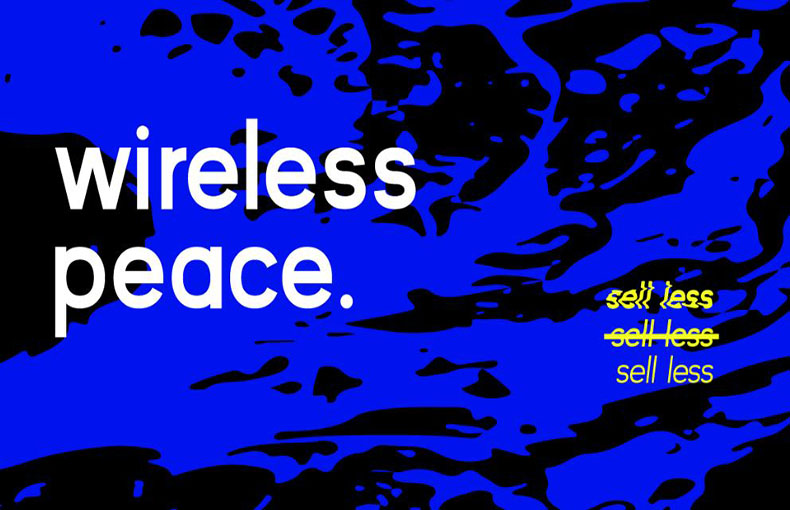
Kayak Sans Font is a modern grotesque typeface that offers a clean and modern aesthetic. It is a relatively new font, created in 2018 by Jack Harvatt.
The glyph sets are divided into Bold, Regular, and Light, each with their corresponding italics, giving users even more flexibility.
It gives any project a touch of modernity with its simple, classy look. The strength of a font lies in how easily it can be read in different contexts due to its simplicity.
It doesn’t matter if you are designing a website, logo, or printed material. Kayak Sans typeface provides a sleek and professional look. The great versatility of this typeface makes it suitable for both headlines and body text.
Modern typeface Kayak Sans provides designers with a variety of possibilities for their projects and is very versatile.
You can make book covers, book paragraphs, printing on cards, product design, product packaging, newspapers, documents, logo design, paragraphs, web design, book layouts, album art, news headlines, and many other fantastic things with the aid of this wonderful font.
The font Kayak Sans contains 235 glyphs and supports 64 languages.
Kayak Sans Font is a modern typeface known for its clean and stylish appearance. It’s often used in design projects, websites, and documents to give a contemporary look to the text.
Kayak Sans Font can be used in a variety of contexts, including websites, presentations, posters, and logos. It works effectively for both print and digital content.